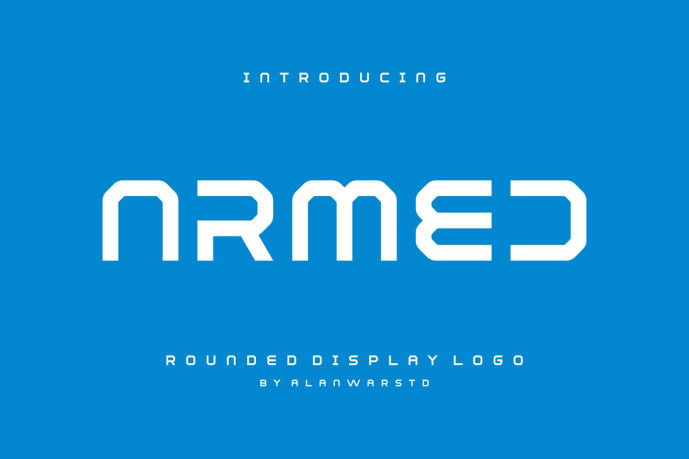
Armed Font
Designer: alanwarstd
Armed Font – Rounded Display Font is a bold and authentic display font. The font is suitable for any branding project like logo, esport, and many more. outstanding in a wide range of contexts.